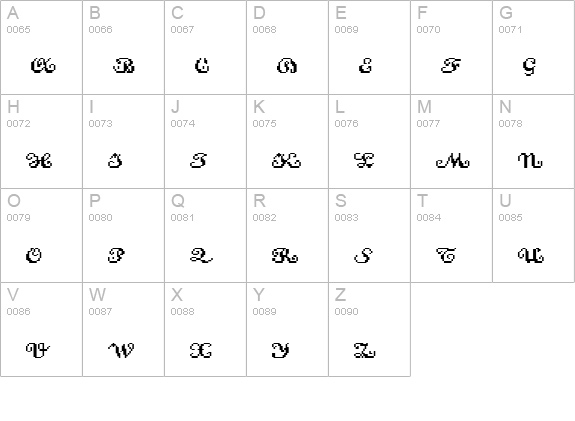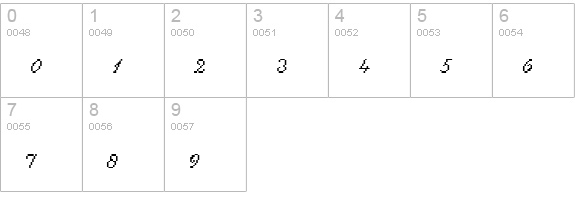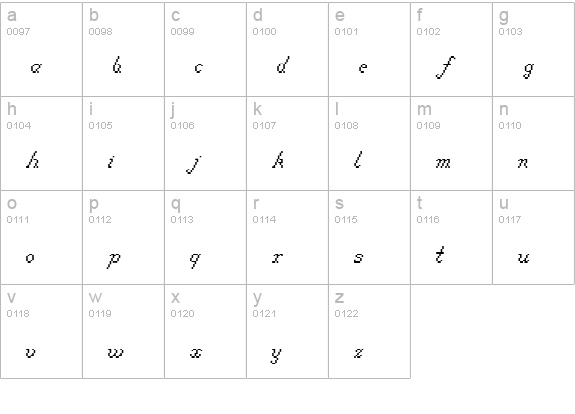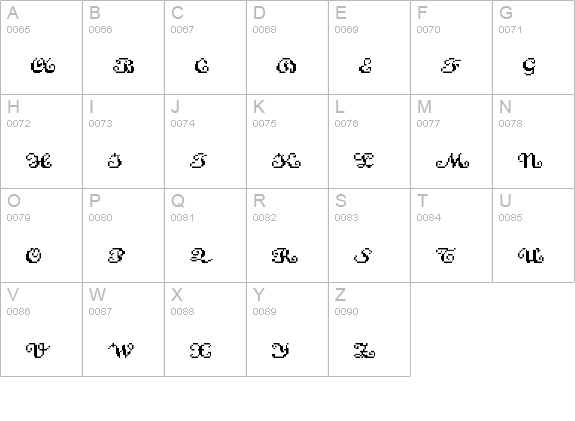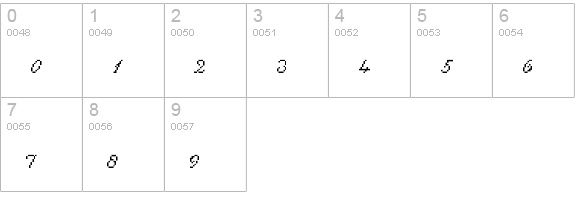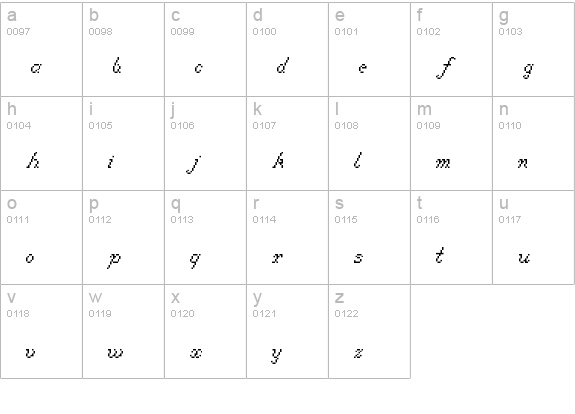
Hannelore Font Details
Introducing Hannelore, a captivating and elegant font that will transport your designs to new heights of sophistication and style. With its graceful curves and impeccable letterforms, Hannelore exudes a timeless beauty that is sure to captivate any audience. What sets Hannelore apart is not only its stunning visual appeal but also its versatility. Whether you're designing a wedding invitation, a logo, or a magazine layout, this font effortlessly adapts to any project, adding a touch of class and refinement. But what truly makes Hannelore stand out is that it is free. That's right, this exquisite font is freely available to download at FontsMarket.com. Say goodbye to restrictive licensing fees and hello to creative freedom. Hannelore allows you to bring your vision to life without breaking the bank. Designed with meticulous attention to detail, Hannelore offers a complete character set, including uppercase and lowercase letters, numerals, punctuation marks, and special characters. Its OpenType features further enhance its versatility, allowing you to experiment with ligatures, alternates, and swashes to create truly unique and personalized designs. Whether you're a professional designer or a creative enthusiast, Hannelore is the perfect addition to your font collection. Its timeless elegance and budget-friendly nature make it a must-have for anyone seeking to elevate their designs without compromising on quality. So why wait? Head over to FontsMarket.com and download Hannelore today. Let your creativity soar and make a lasting impression with this sensational font that seamlessly blends beauty and accessibility.